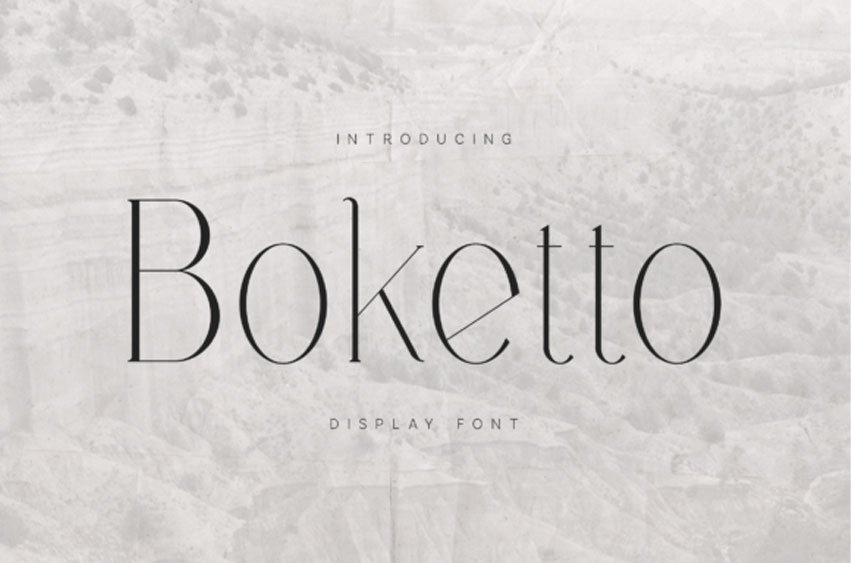
Boketto Font is an elegant modern serif display font designed with delicate high-contrast strokes and refined letterforms. Boketto works beautifully for editorial layouts, magazine headlines, branding projects, logo design, luxury packaging, wedding stationery, modern typography compositions, posters, creative layouts, and sophisticated visual identities.
With its refined modern structure and elegant serif styling, Boketto offers a distinctive display typeface for clean, sophisticated typography and modern editorial design.